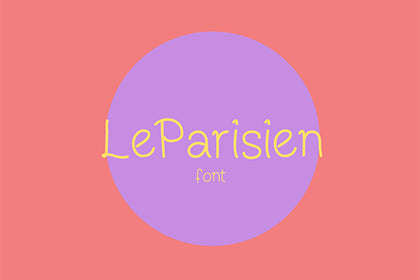
Free Le Parisient Font
Grab this awesome free le parisient – font into your repertoire. Give a boost to your designer life. This free font file was found from the amazing source called Free Design Resources. This is absolutely fancy font so you can easily make world-class designs.